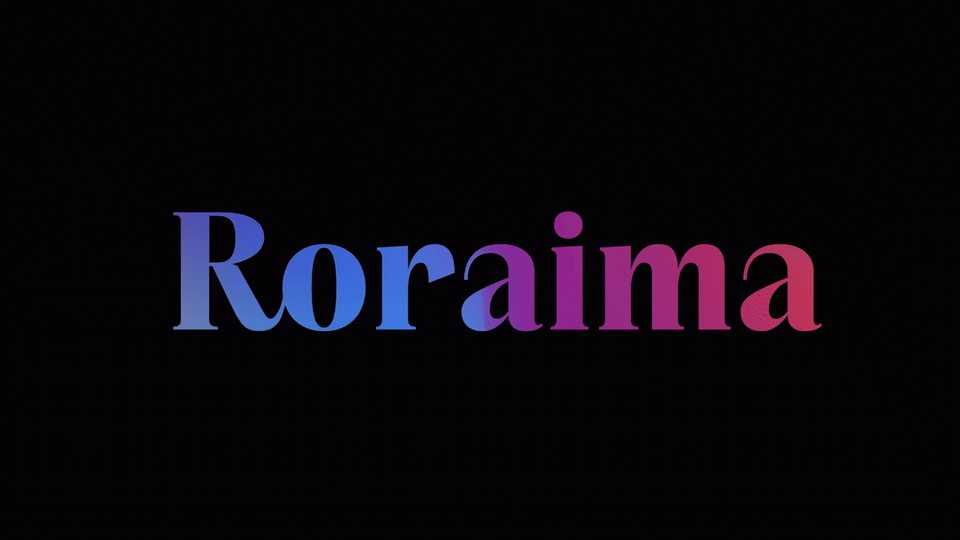
Download Roraima typeface, a high contrast variable serif font family in three weights with sleek lines that project elegance and femininity.
Designer: Elina Panda